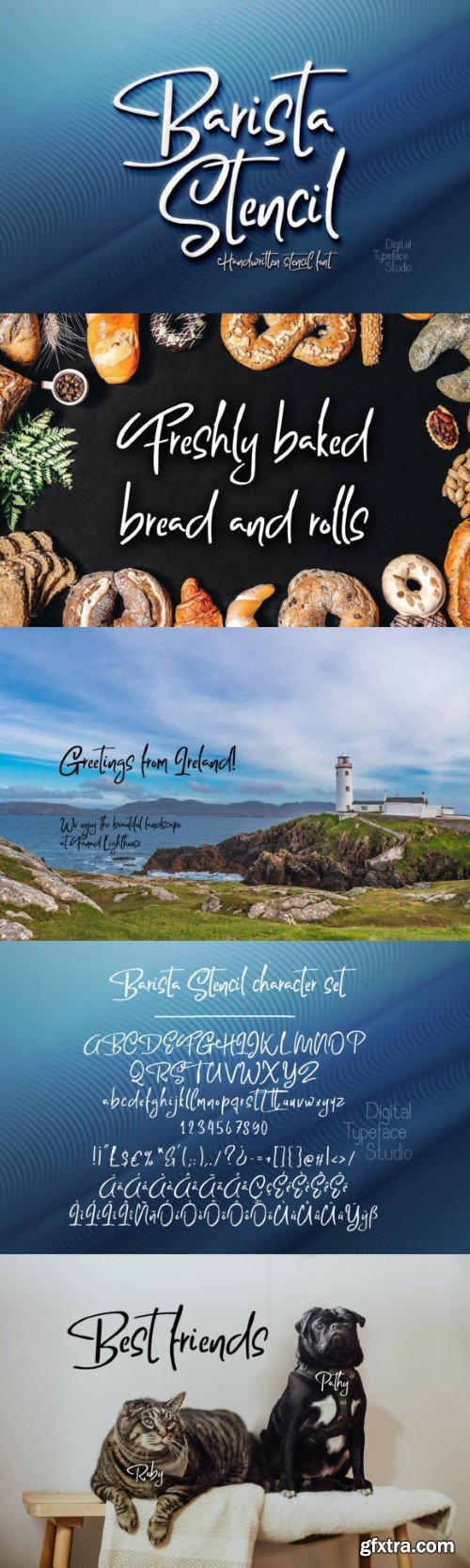
咖啡师遮罩字体
Barista Stencil is a carefully crafted handwritten stencil font, crafted without closed loops on the characters, so you can create truly unique and original looking designs.
Perfect for cutting projects, crafts, packaging and more!